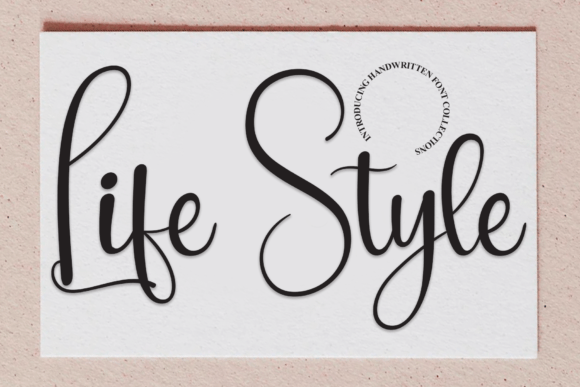
Embark on an enchanting journey into the realm of calligraphy with the Life Style Font, a resplendent script font family that exudes both charm and elegance. Crafted with meticulous care by the renowned Roronoa Zoro.S.P.D, this font is a symphony of flowing strokes and delicate curves, reminiscent of a pen gracefully gliding across paper.
Unleash your creativity and let your words dance upon the page with Life Style's captivating style. Its intricate loops and flourishes add a touch of whimsy and sophistication to any project, whether it be wedding invitations, heartfelt thank-you cards, inspiring quotes, or eye-catching greeting cards. Allow your designs to blossom with the Life Style Font, transforming them into works of art that resonate with warmth and authenticity.
Envision your business cards and logos adorned with the Life Style Font, making a lasting impression on clients and customers alike. Its elegant lines and timeless appeal convey a sense of professionalism and artistry that sets you apart from the ordinary. Let your brand shine with a unique identity, one that reflects your passion and dedication to excellence.
Immerse yourself in the versatility of the Life Style Font, a font that seamlessly adapts to a myriad of design projects. From social media graphics that captivate audiences to product packaging that exudes elegance, Life Style effortlessly elevates your designs to new heights. Its versatility knows no bounds, making it an indispensable tool for any creative endeavor.
Embrace the Life Style Font and open the door to a world of boundless possibilities. Its enchanting aura will transform your designs into captivating works of art, leaving a lasting impression on all who behold them. Let your imagination run wild and experience the magic that unfolds when you unleash the power of Life Style, the ultimate font for those who seek beauty and grace in their creative expressions.